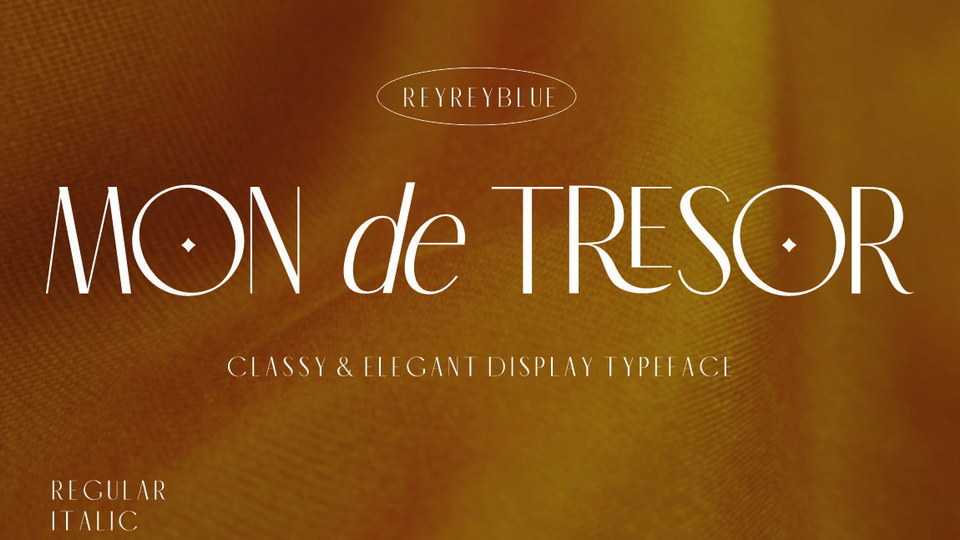
Download Mon de Tresor font, a modern and classy sans serif typeface. Mon de Tresor will add a luxury spark to any design project that you wish to create.
Designer: Reyrey Blue